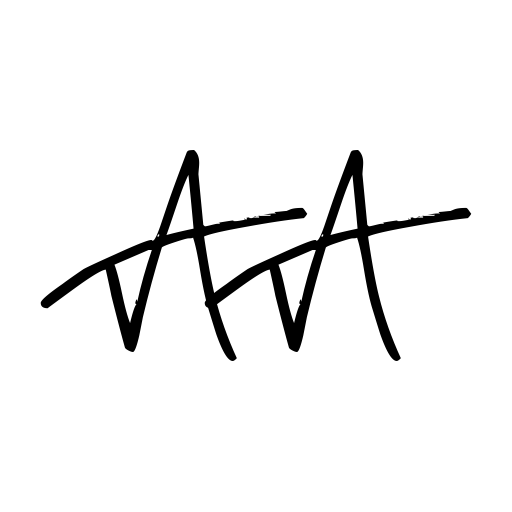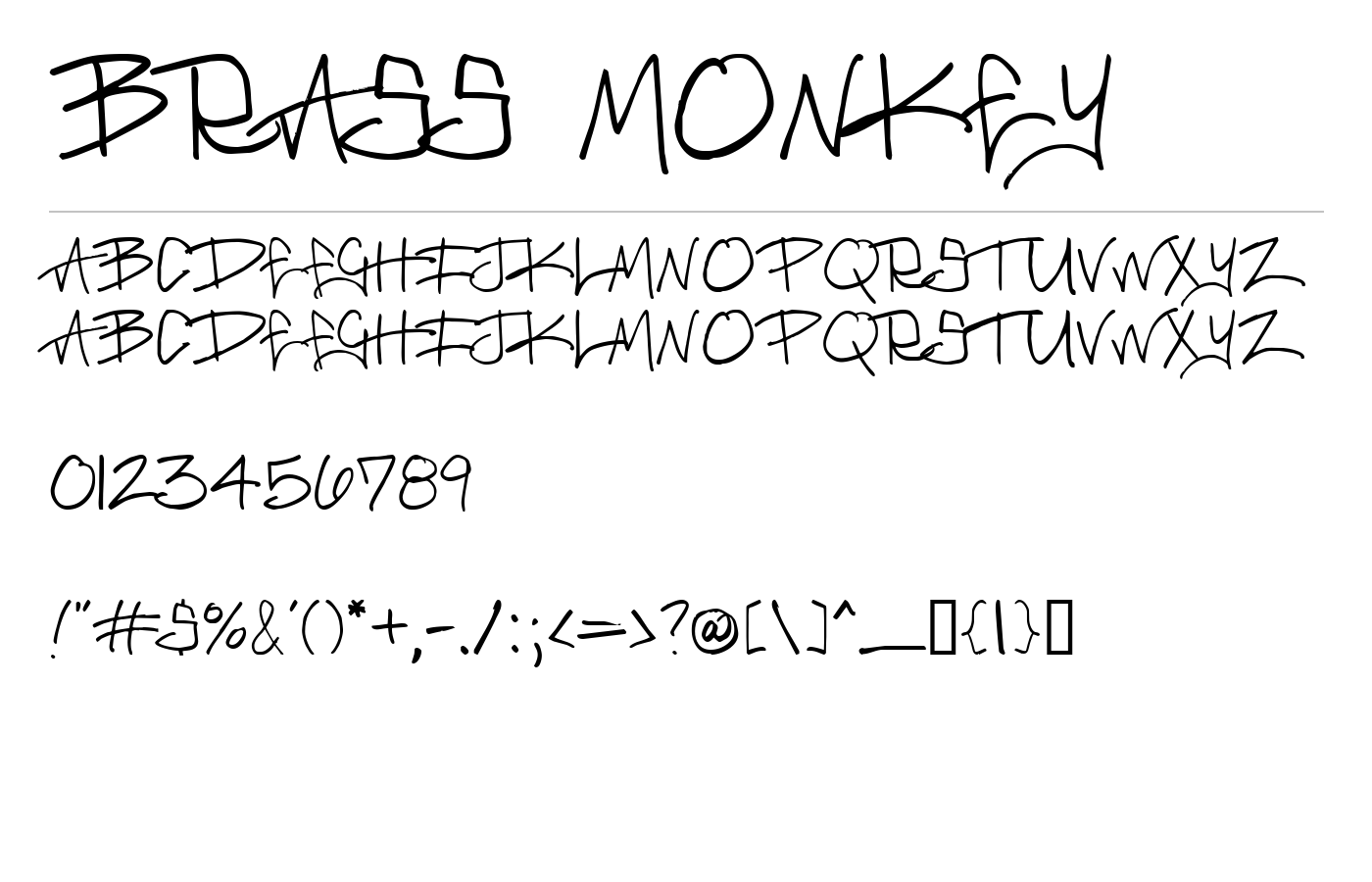
Brass Monkey is a casual, hand-drawn script font with a playful and slightly edgy personality, featuring irregular strokes and a lively flow. Its tall, narrow letterforms and loose structure make it ideal for creative, informal designs like posters, branding for youth-oriented products, or expressive headlines. This font adds a spontaneous, dynamic feel that works well where a fun and unique hand-crafted touch is desired.
Brass Monkey Font
About Brass Monkey Font